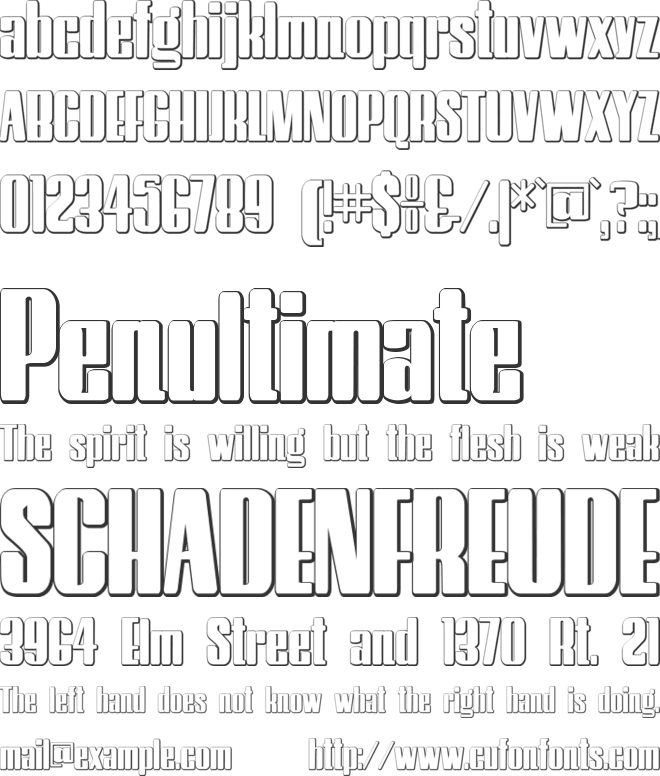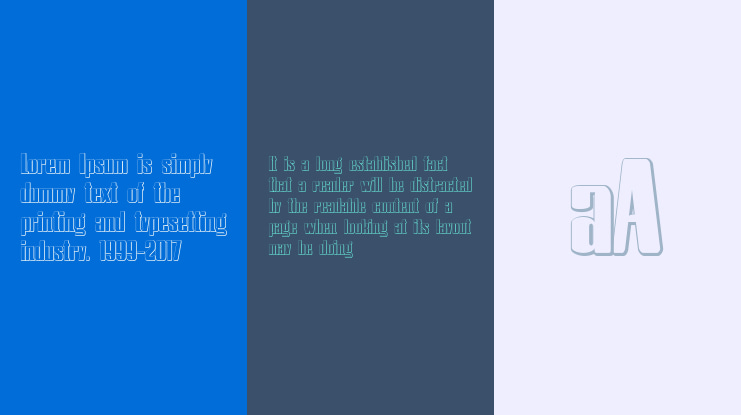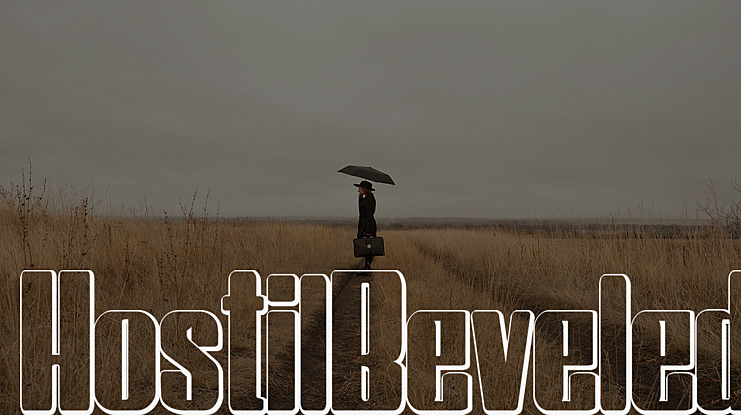
HostilBeveled Font Family
Hostil Beveled Free, by Intellecta Design
Hostil Beveled Free has a different font style set than the orioginal "Hostil" font. Purchase the original Hostil (a multi-language family of eight fonts) with respective commercial licences at MyFonts.Com, visiting http://new.myfonts.com/fonts/intellecta/hostil/
THE ORIGINAL FONT
Hostil is a modern typeface ready to fight for you. In any territory. Hostil has complete sets in Latin, Hebrew, Cyrillic, and Greek chracters. Plus Cen tral European, Vietnamese, Baltic, Turkish complete sets with all diacritic signs and punctuation marks and extra characters belonging this ranges. Hostil has a wide variety of presentations, like Regular, Bold, Italic, Outline Wide, ExtraWide, Shadow and Compressed.